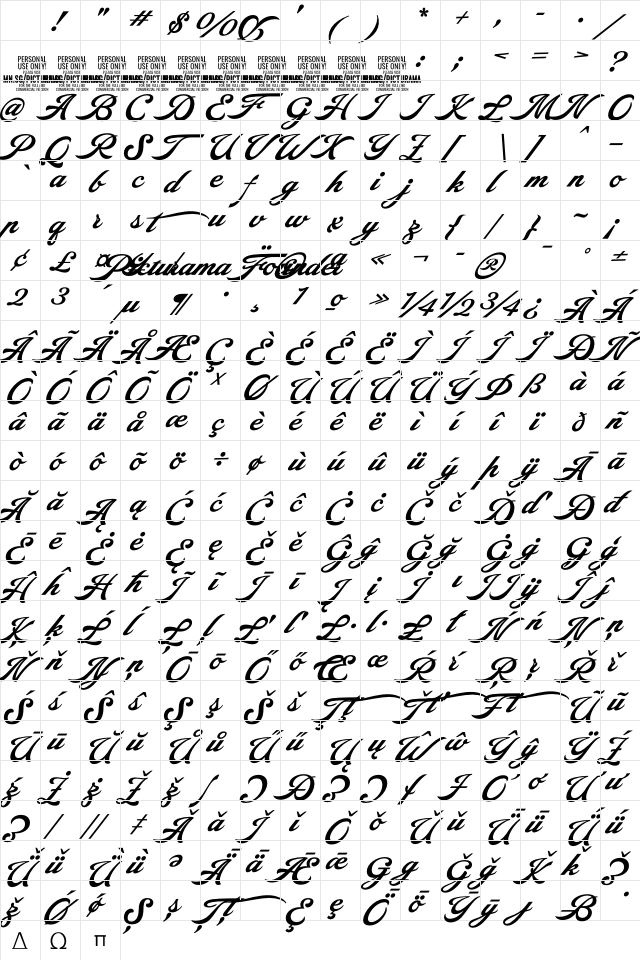
Complete Picturama Alternate PERSONAL Regular glyph index. Displaying only characters natively supported by Picturama Alternate PERSONAL Regular font.
Picturama Alternate PERSONAL is a composed and adaptable typeface that performs quietly and consistently across a wide range of design contexts.